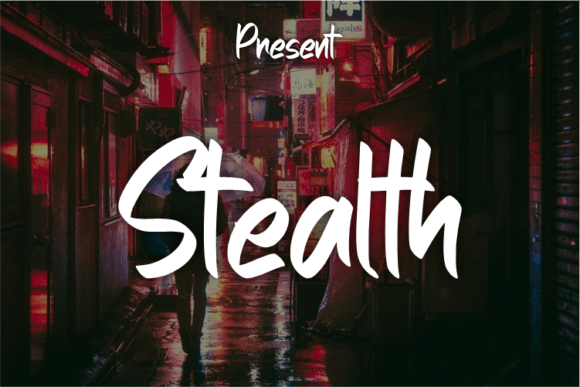
Welcome to the world of Stealth Font, a sophisticated script typeface that exudes elegance and modernity. Crafted by the renowned Eric Kusuma, this font is a masterpiece designed to elevate your designs to new heights.
With its clean lines and stylish curves, Stealth Font captivates the eye and invites you to indulge in the art of typography. Each letter has been meticulously crafted to reflect the essence of sophistication, making it the perfect choice for creating visually stunning logos, captivating book covers, and unforgettable movie titles. Unleash your creativity and let Stealth Font guide you towards design excellence.
But Stealth Font's allure extends far beyond its visual appeal. Its versatility knows no bounds, making it the ideal choice for a wide range of design projects. Whether you're creating a luxurious brand identity, designing an eye-catching magazine spread, or showcasing your latest fashion collection, Stealth Font seamlessly adapts to your needs.
Embrace the power of typography and let Stealth Font ignite your imagination. Join the countless designers who have fallen in love with its charm and experience the transformative power of this exceptional typeface. From captivating Instagram captions to unforgettable quotes, Stealth Font empowers you to communicate your message with style and impact.